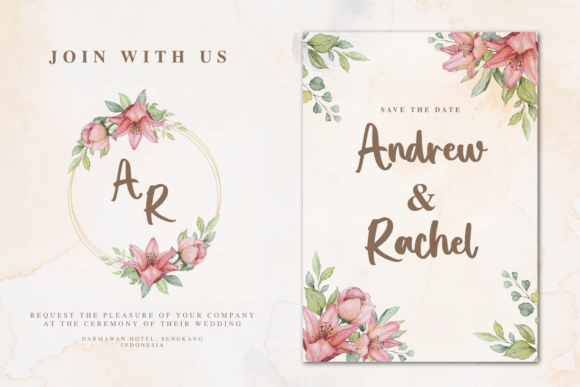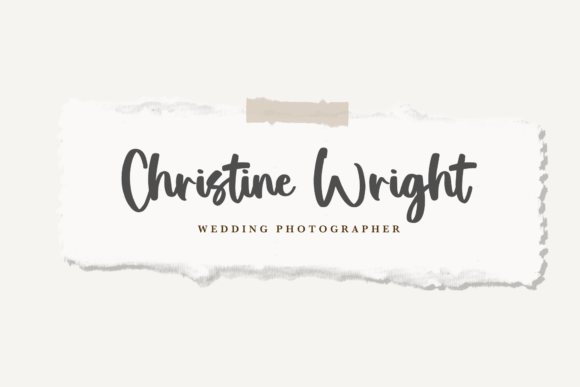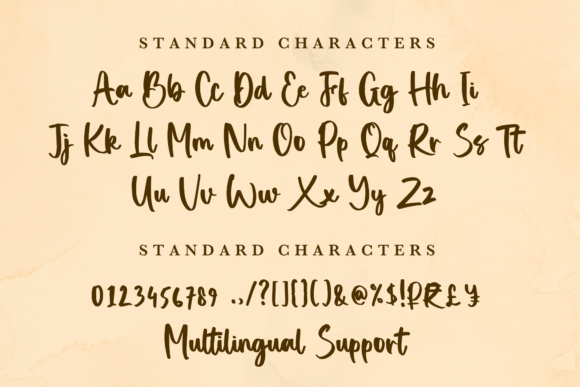
Discover the Sweetness of Better Chocolatte Font
Have you ever been in the middle of a design project, pouring your heart and soul into it, only to hit a roadblock when it comes to choosing the perfect font? I certainly have! It was during one of those moments, while working on a branding project for a trendy cafe, that I stumbled upon the Better Chocolatte font. This font has been a game-changer for me, and I’m excited to share its awesomeness with you!
What Makes Better Chocolatte Font So Special?
The Better Chocolatte font boasts a unique and natural handwriting style, complete with smooth curves that add a touch of elegance to any design. Its versatility makes it perfect for a wide range of projects, including branding logos, invitations, magazines, quotes, crafts, and more. One of its standout features is the inclusion of standard ligatures, which can elevate your designs to a whole new level.
- ✨ Unique and natural handwriting style that adds a personal touch to designs
- ✅ Smooth curves and flowing lines that create a sense of elegance
- 🎉 Standard ligatures that add an extra layer of sophistication
- 🖌️ Perfect for a variety of projects, from branding to crafting
- 🤔 Limited availability of stylistic alternates, which might limit some design options
- ⚠️ May not be suitable for very formal or traditional designs, as it has a distinctly modern feel
The Backstory Behind Better Chocolatte Font
The Better Chocolatte font was created with the intention of bringing a touch of warmth and personality to designs. Inspired by the smooth, flowing lines of handwriting, this font aims to capture the essence of natural, human connection. While the designer behind Better Chocolatte remains a bit of a mystery, their passion for creating beautiful, functional fonts is evident in every curve and line.
Q: What makes Better Chocolatte font unique?
A: Better Chocolatte font stands out due to its unique, natural handwriting style and the inclusion of standard ligatures, making it perfect for designs that require a personal touch.
Q: Does Better Chocolatte font support OpenType features?
A: Yes, Better Chocolatte font includes support for OpenType features, such as ligatures, which can enhance your designs.
Q: Is Better Chocolatte font suitable for body text?
A: While Better Chocolatte font is beautiful for headings and titles, it might not be the best choice for body text due to its decorative nature. It’s best used for accents and highlights within your design.